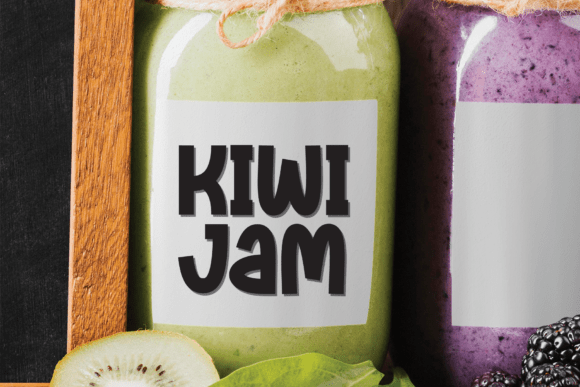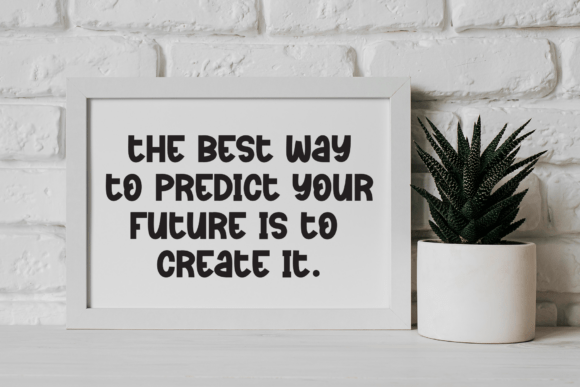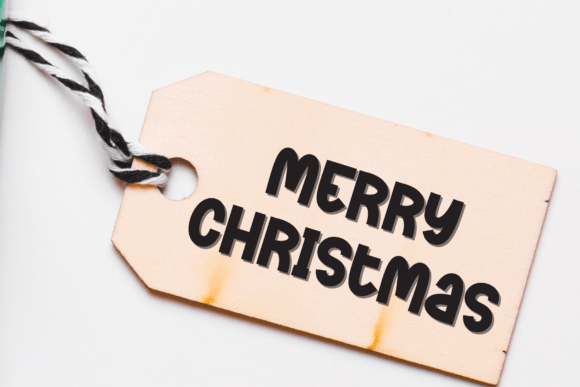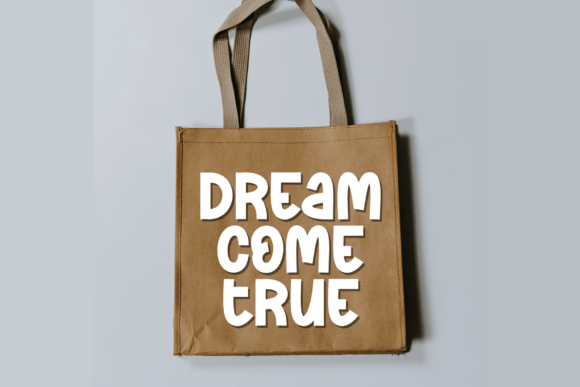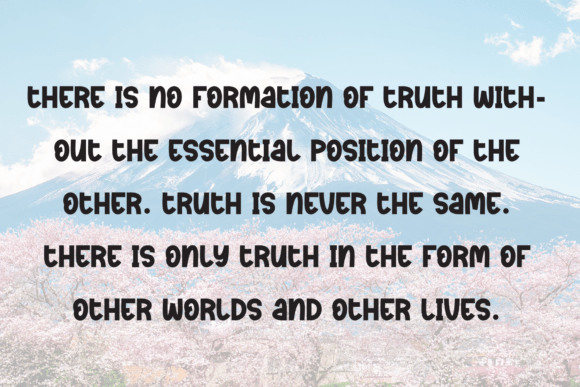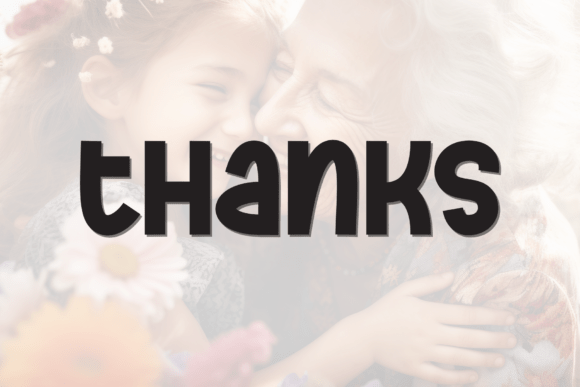
Introduction to Grandma Alphabet Font
Who hasn’t spent hours poring over their grandmother’s old recipe book, admiring the handwritten notes and faded photographs that tell the story of their family’s history? For many of us, it’s those personal touches that make a project truly special. That’s exactly what the Grandma Alphabet Font aims to capture – the warmth and character of a handwritten note from someone you love.
As a designer, you’re always on the lookout for the perfect font to add that extra something to your project. The Grandma Alphabet Font is a high-quality design resource that’s sure to bring a smile to your clients’ faces. With its transparent background and bold, easy-to-read letters, it’s the perfect choice for a wide range of creative projects – from children’s books to DIY crafts and branding for creative products.
Key Features of Grandma Alphabet Font
- High-quality design: Grandma Alphabet Font offers a unique, whimsical style perfect for creative projects.
- Transparent background: This font features a transparent background, making it ideal for use on any background or design.
- Unique characteristics: Grandma Alphabet Font features a playful, handwritten style with a mix of uppercase and lowercase letters, making it perfect for adding a personal touch to designs.
- Perfect for creative projects: This font is ideal for use in scrapbooking, card making, and other creative projects where a unique, high-quality font is needed.
Honest Review: Grandma Alphabet Font
I recently had the chance to work with the Grandma Alphabet Font, and I must say it’s been a delightful experience. The font is designed to resemble a handwritten alphabet, perfect for a creative project that requires a personal touch. ✨
- High quality: The font is crisp and clear, making it easy to read and use in any design.
- Transparent background: The font’s transparent background makes it easy to layer and composite with other design elements.
One of the things I love about the Grandma Alphabet Font is its versatility. It’s perfect for a variety of design projects, from children’s books to advertisements and more. The free download option is also a major plus, making it an excellent design resource for anyone looking to add a personal touch to their work.
- Customizability: The font is quite specific in its design, which can make it difficult to customize for certain projects.
- Limited style options: While the font is perfect for a casual, handwritten look, it may not be suitable for projects that require a more formal or modern aesthetic.
Overall, I’m quite impressed with the Grandma Alphabet Font. It’s a great design resource for anyone looking to add a personal touch to their work. With a little creativity, it can be used in a wide range of design projects.
The Grandma Alphabet Font is a high-quality design resource that adds a touch of warmth and nostalgia to any creative project. With a transparent background, this font is perfect for overlaying onto images or backgrounds of your choice.
Tips for Getting the Most Out of the Grandma Alphabet Font
To get the most out of the Grandma Alphabet Font, try combining it with other design elements, such as illustrations and textures, to create a unique and eye-catching design. Experiment with different font sizes, colors, and arrangements to achieve the desired look.
The Grandma Alphabet Font is perfect for a variety of creative projects, including: